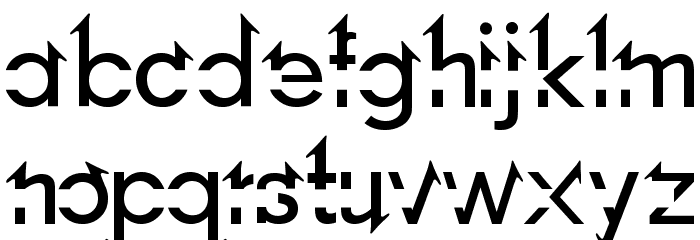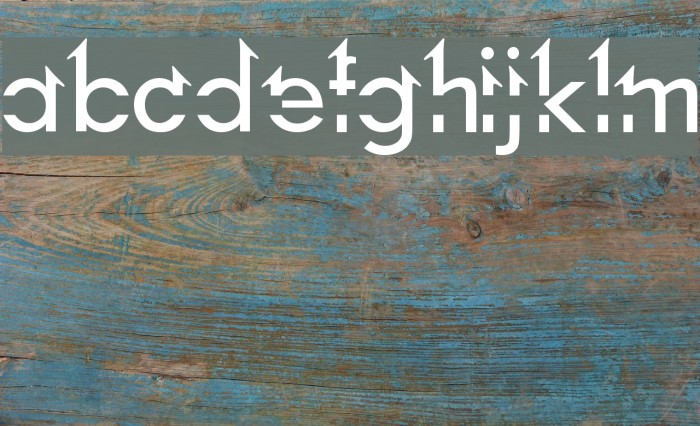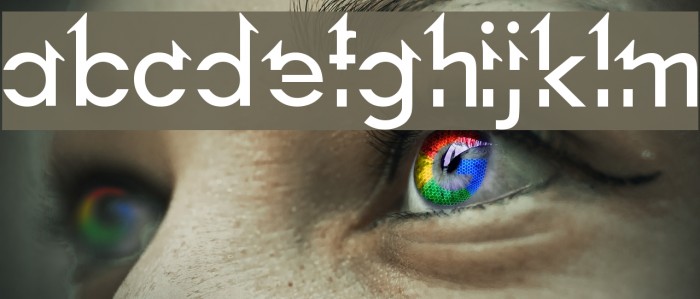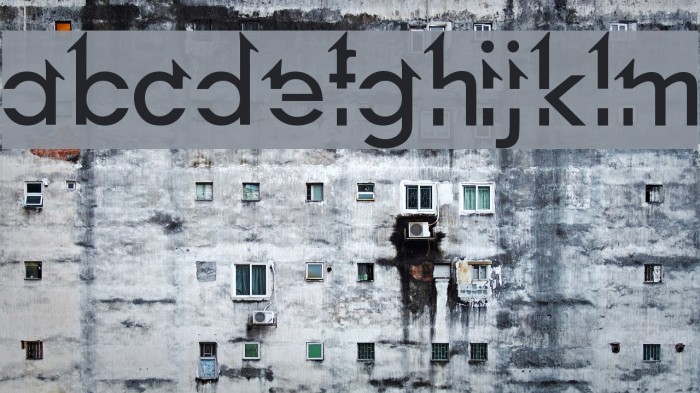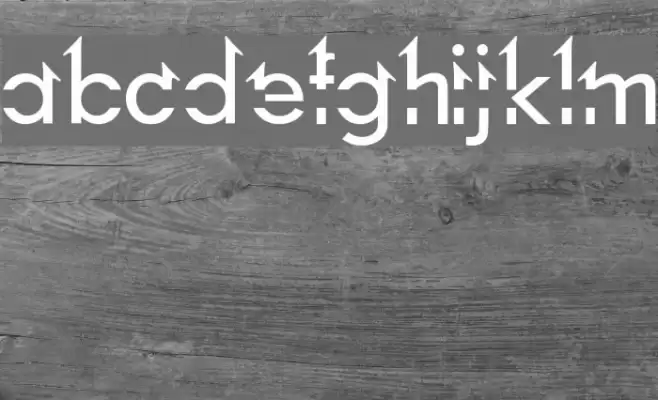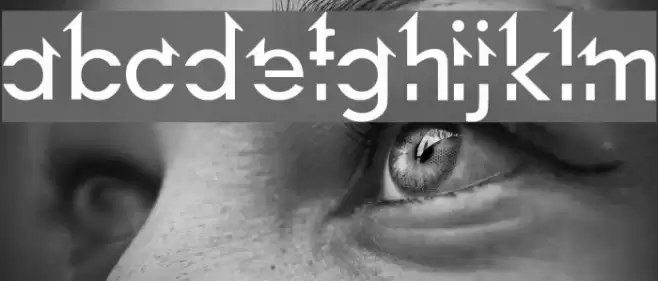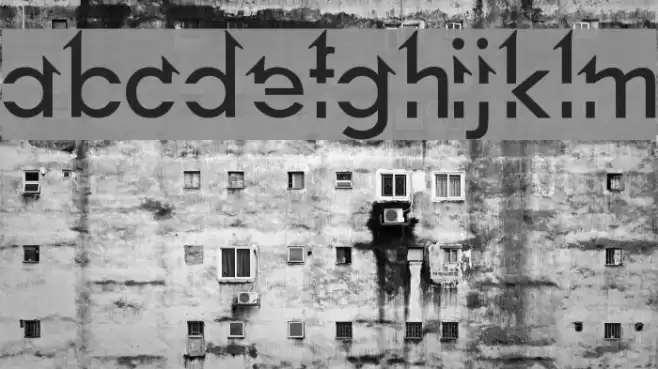
Lost Link Font
This font features a unique and modern design with angular, geometric elements that create a sense of movement and direction. The characters are bold and striking, with sharp edges and distinct arrow-like shapes integrated into the letterforms. This design choice gives the font a dynamic and futuristic appearance, making it stand out in any application. The consistent use of these angular elements across both uppercase and lowercase letters, as well as numbers and special characters, ensures a cohesive and visually appealing typeface.
A bold, geometric font with angular, arrow-like elements for a dynamic look.
- Proposed Projects: Ideal for branding projects, futuristic designs, tech-related logos, and modern advertising campaigns.
- Use Case: Logos, Headlines, Branding